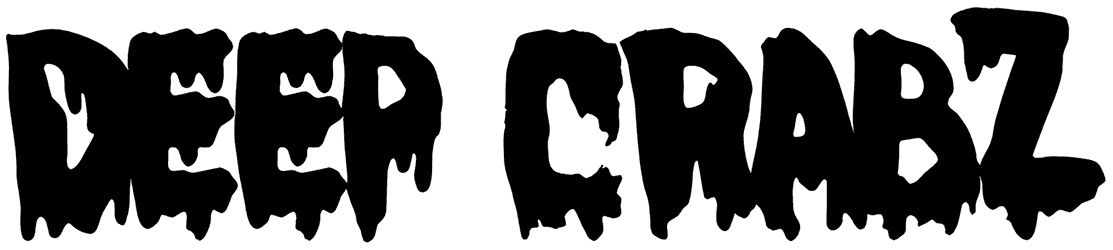
Deep Crabz Font
Looking derived of an excessive spray painting to bring messy, urban, and also bleeding vibes to your graphics, nothing is more convincing than this horror font, especially on any movie titles, flyers, Halloween posters, or scary banners.
Deep Crabz, which is not outside of the melting font, supports capital letters to point out many innovative header presentations in any visual with mess themes. Get ahead of others by diving into many stellar quality ones in Resource Boy’s record.